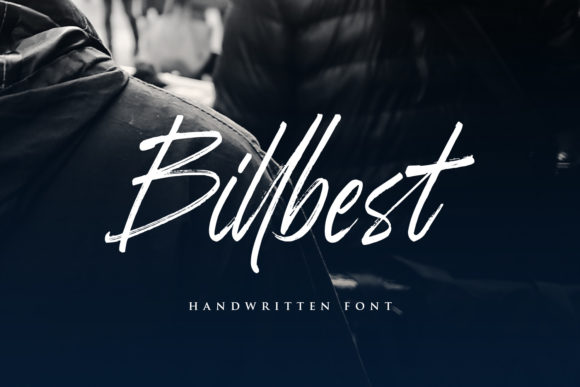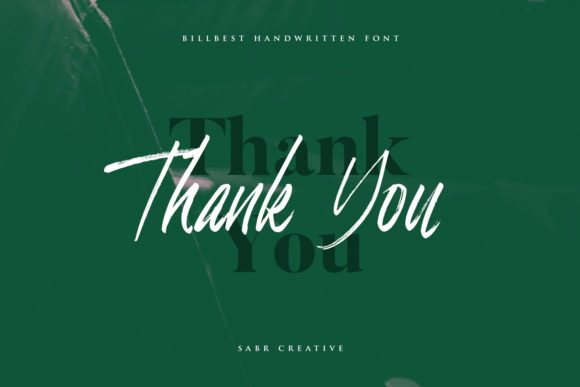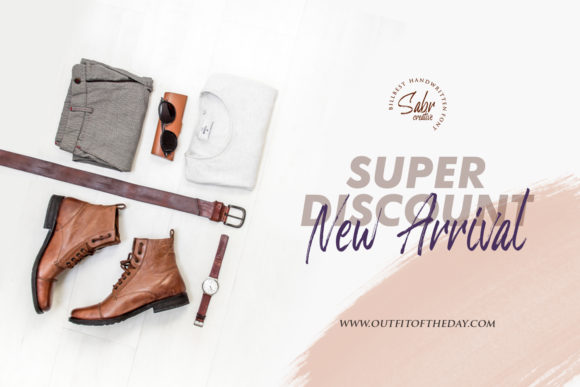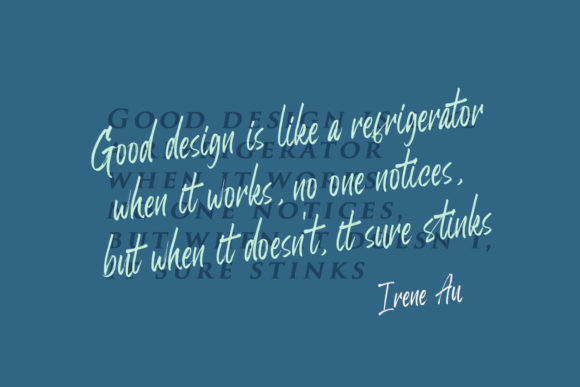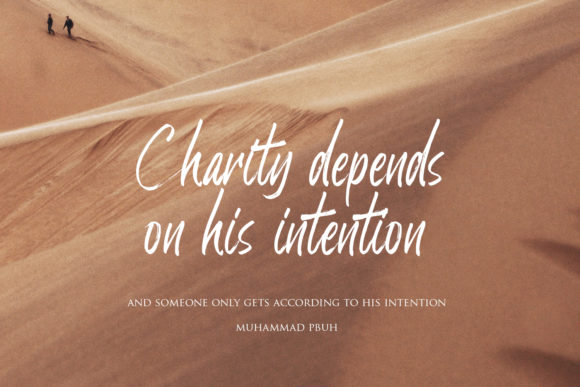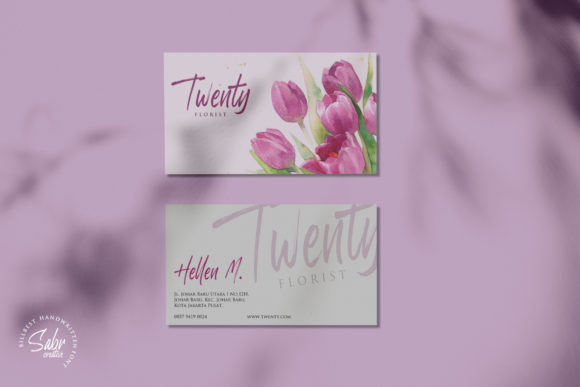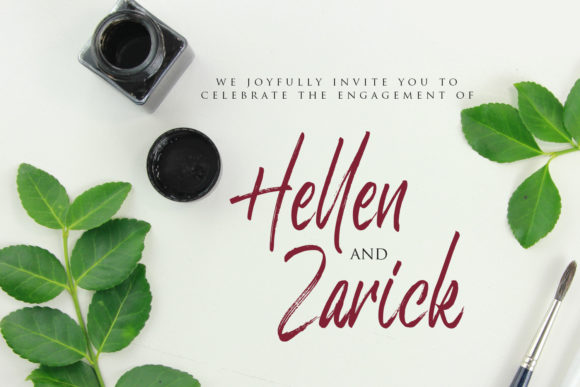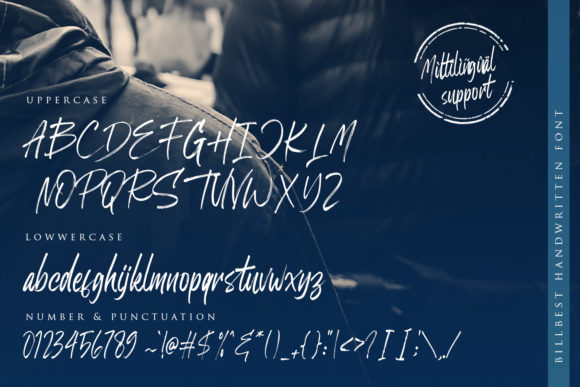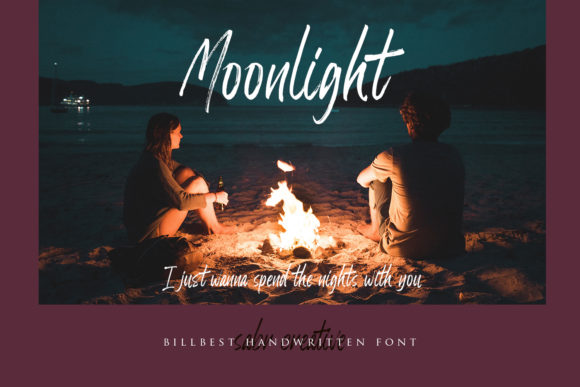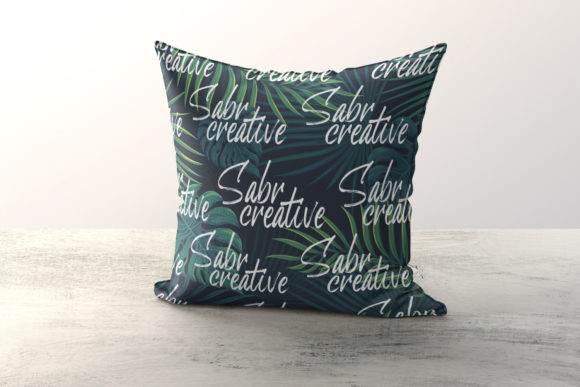
Billbest Font
About Billbest Font
Billbest delivers an incredibly bold and modern font experience. This fancy signature font feels both familiar and fresh and will take any design project to the next level.